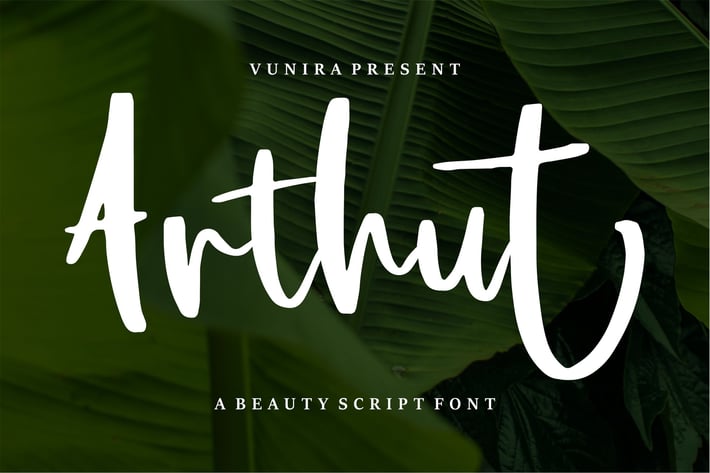
Arthut |Modern Script Font
Arthut | A Beauty Script Font with a calligraphy style, So beautiful on invitation like greeting cards, branding materials, business cards, quotes, posters, and more!